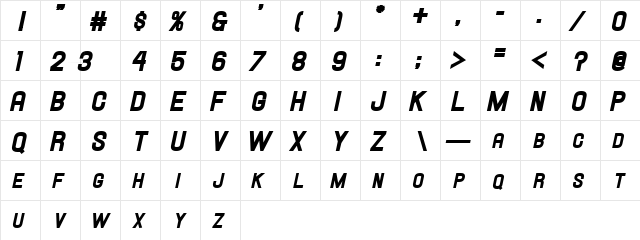
Hallandale SC Heavy It. JL Regular
| Foundry | Jeff's Fonts & Dingbats |
| Designer | Jeffrey N. LEvine |
Design Context for Hallandale SC Heavy It. JL Typeface
Hallandale SC Heavy It. JL takes a measured approach to typography — its balanced proportions and neutral character make it a reliable workhorse for both digital and print work.